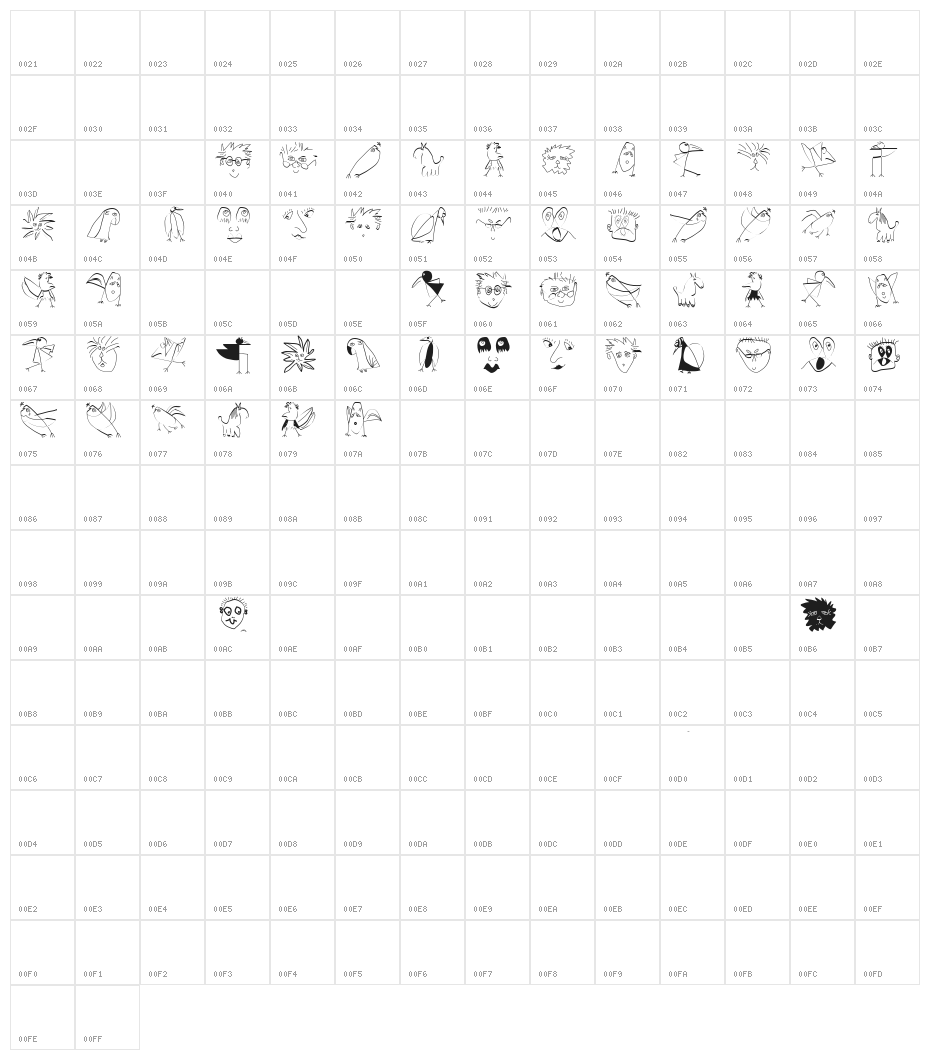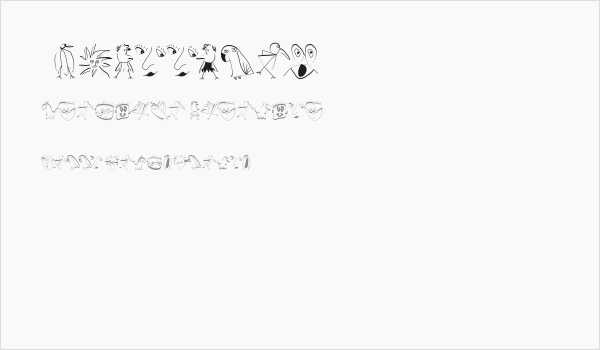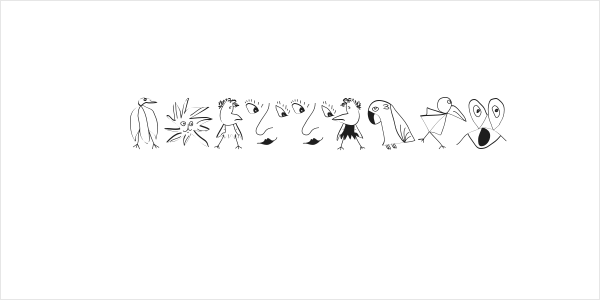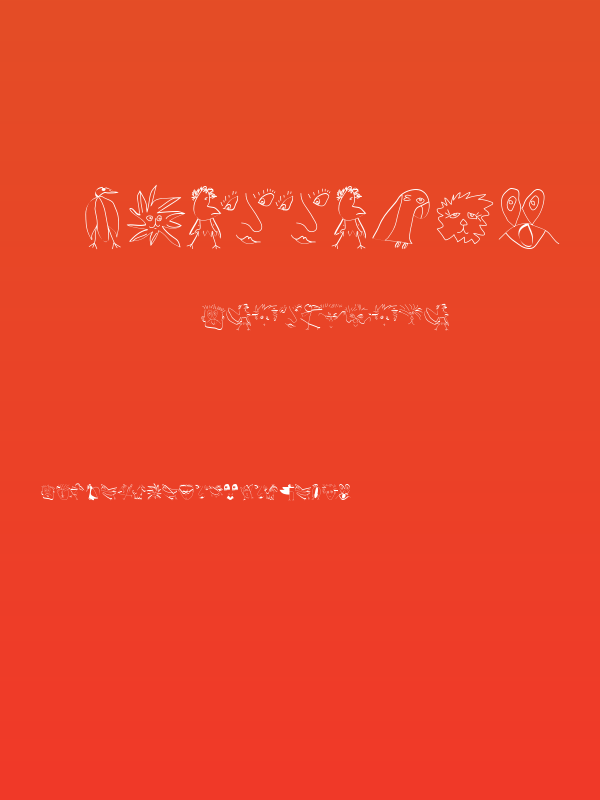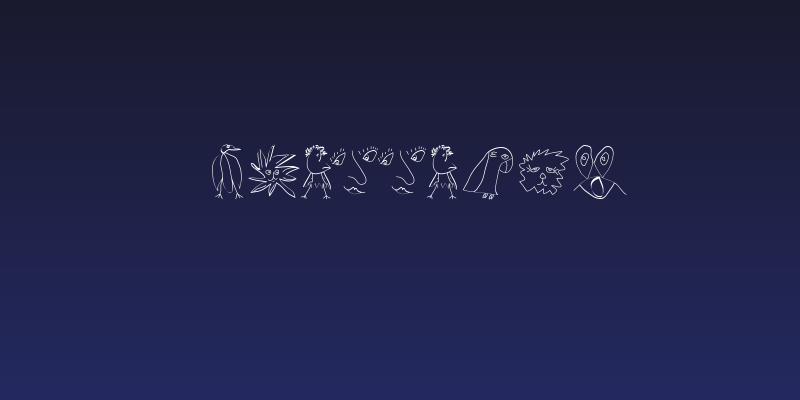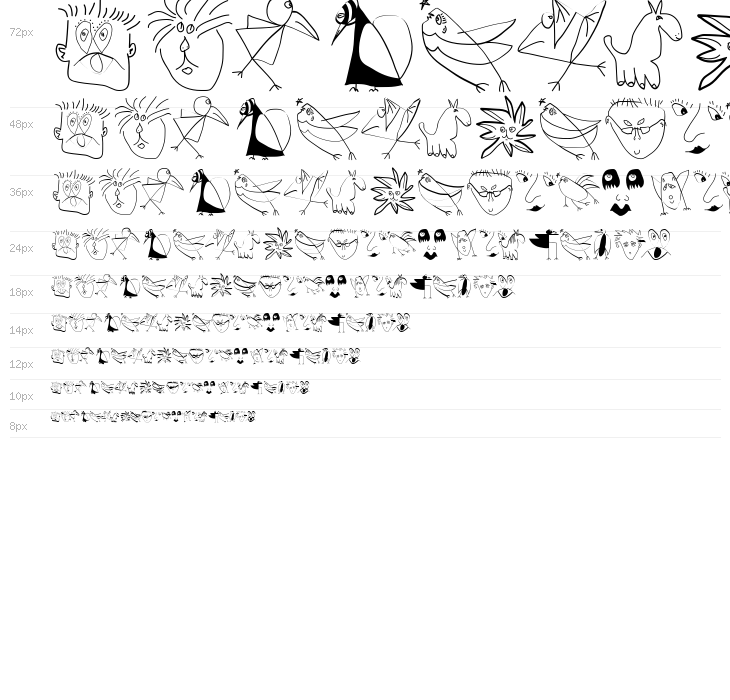
MKDoodles Font
MKDoodles Description
This font is a whimsical and playful collection of doodle-style characters, each uniquely crafted with a sense of humor and creativity. The characters are composed of simple lines and shapes, resembling quirky birds and abstract faces, giving it a hand-drawn, artistic feel. The font lacks uniformity in stroke width, contributing to its casual and informal appearance. It's designed to capture attention with its unconventional and imaginative style, making it ideal for projects that require a touch of fun and originality.
| Overall Style | Whimsical |
| Use Case | Logos, Posters, Creative Projects |
| Proposed Projects | Ideal for children's books, playful branding, creative posters, and artistic invitations. |